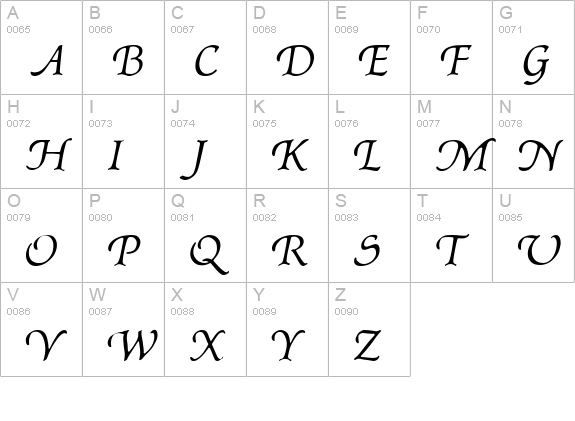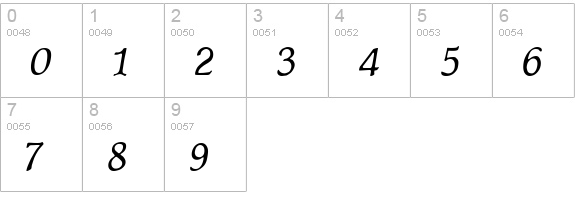
Afton Font Details
Afton font is a stunning display typeface that exudes elegance and sophistication. Its clean lines and modern aesthetic make it perfect for a wide range of design projects, from branding to editorial layouts. The versatility of Afton font allows it to seamlessly blend into various design styles, adding a touch of class and professionalism. What makes Afton font even more appealing is that it is available for free download at FontsMarket.com. This means you can easily access this beautiful typeface and use it in your projects without any cost. Whether you're a graphic designer, a web developer, or a business owner looking to elevate your brand, Afton font is a fantastic choice that won't break the bank. With its timeless appeal and easy accessibility, Afton font is a must-have addition to your font collection. Download it today and see how it can enhance your designs with its unique charm and versatility.